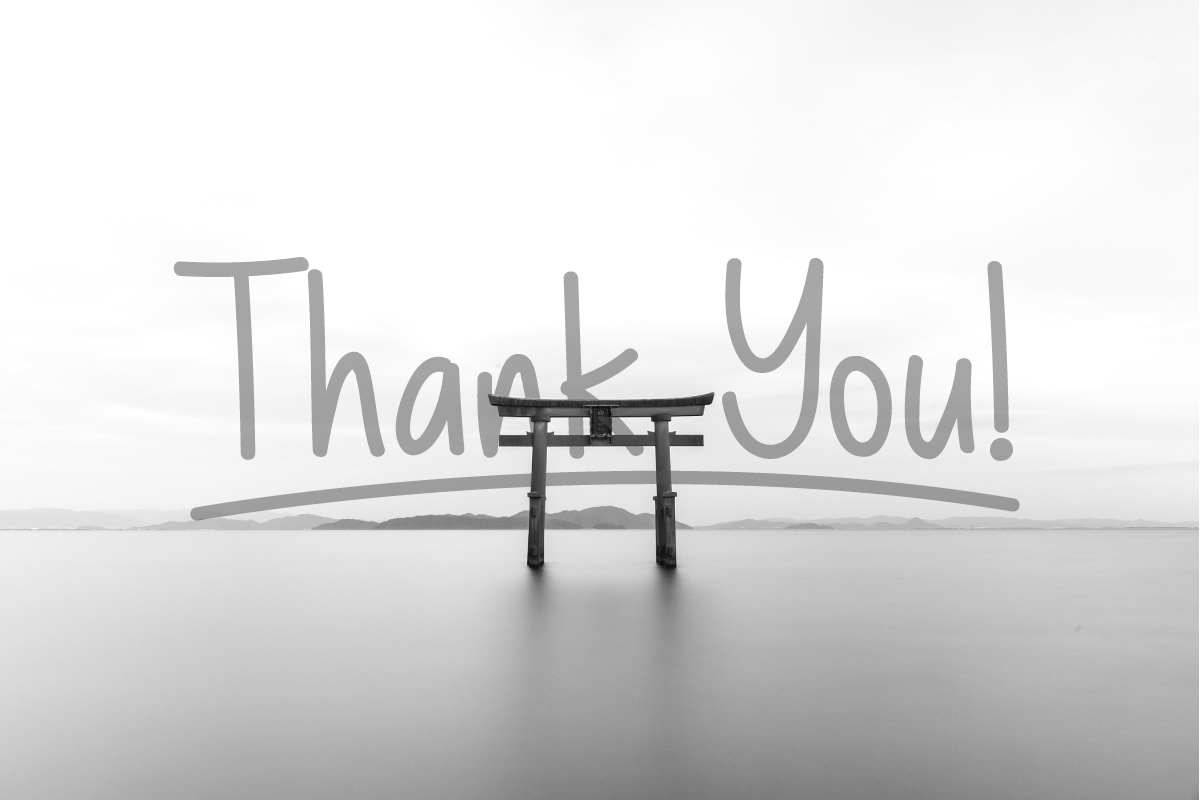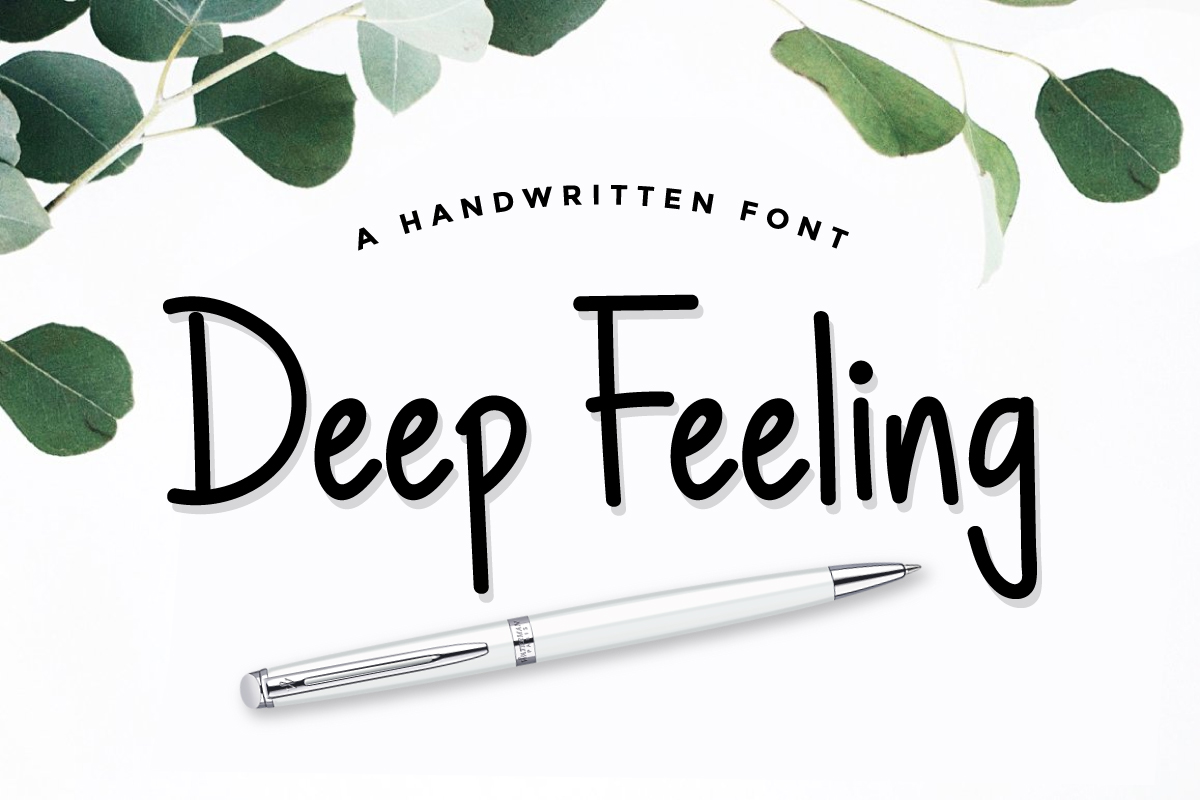
Deep Feeling Script
Deep Feeling Script Font
Introducing Deep Feeling Typeface – a handwritten font that is very fresh and unique style handmade. Deep Feeling Typeface is perfectly suited to logo, tationery, poster, apparel, branding, wedding invitation, card, tagline, layout design, and much more !!